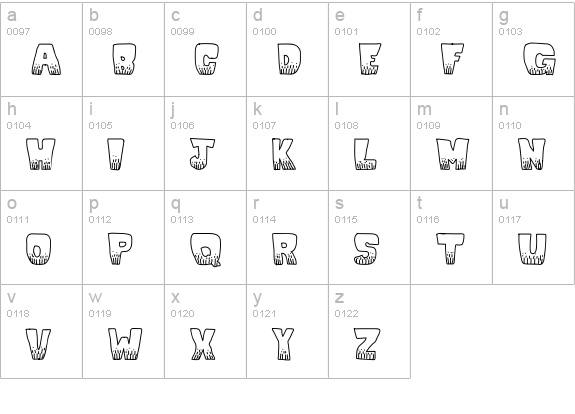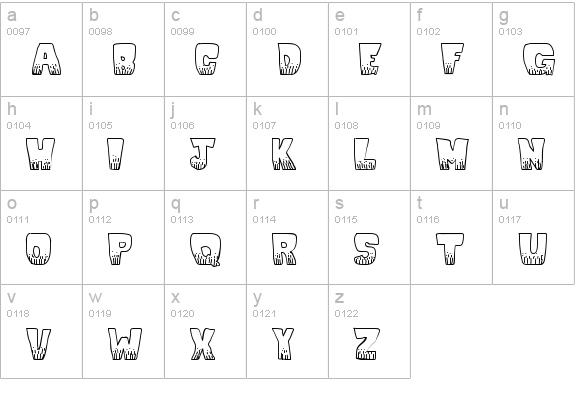
KaBlooie! Font Details
Introducing KaBlooie! font, a playful and vibrant typeface that is sure to add a burst of energy to any design project. With its bold and dynamic letterforms, KaBlooie! font is perfect for catching attention and making a statement. This font is not only visually captivating but also incredibly versatile. Whether you're designing a poster, a logo, or even a social media post, KaBlooie! font will bring a sense of fun and excitement to your work. Its unique and quirky style will instantly grab the viewer's attention and leave a lasting impression. But what sets KaBlooie! font apart is that it is free! That's right, you can download this amazing font without spending a penny. Simply head over to FontsMarket.com and grab your copy today. With just a few clicks, you can have access to this fantastic font and start incorporating its vibrant personality into your designs. KaBlooie! font is not only visually appealing but also incredibly easy to use. Its clean and well-crafted letterforms ensure legibility, making it suitable for a wide range of projects. Whether you're a professional designer or just starting out, this font will be a valuable addition to your toolkit. So why wait? Don't miss out on the opportunity to enhance your designs with the electrifying energy of KaBlooie! font. Download it for free at FontsMarket.com and let your creativity explode with every stroke of this captivating typeface.